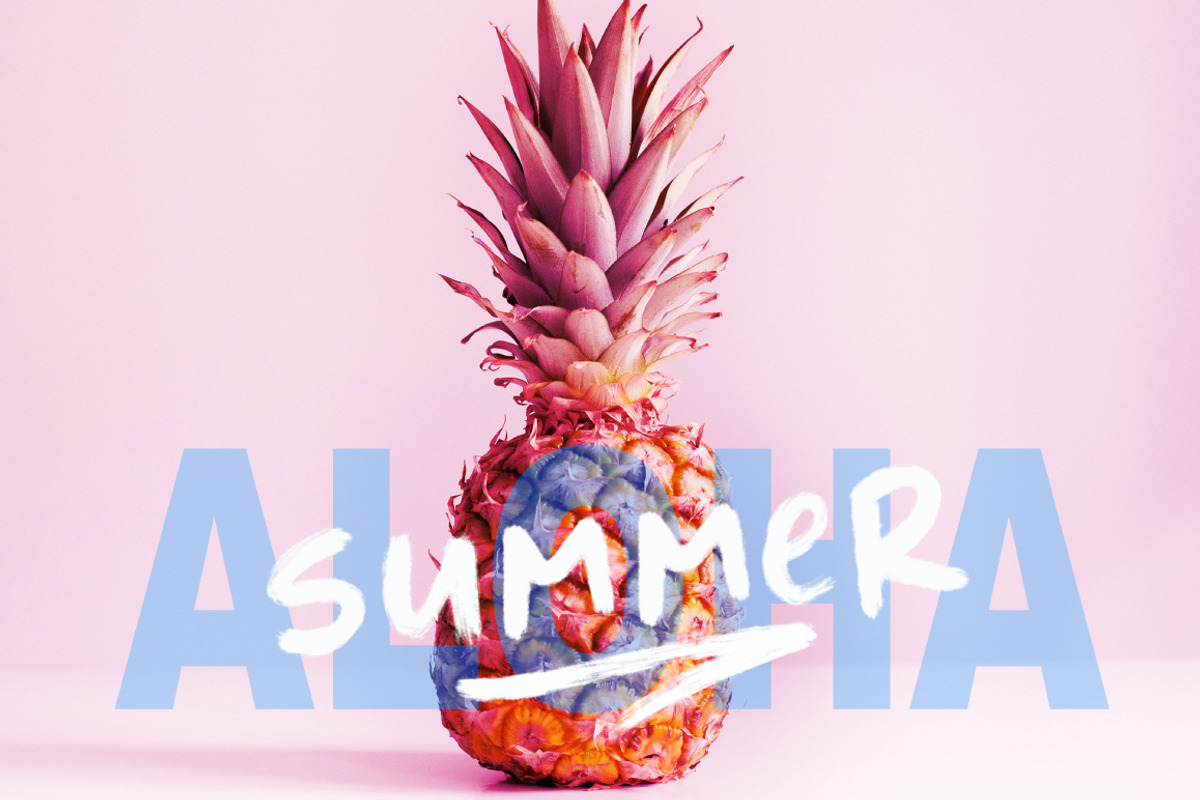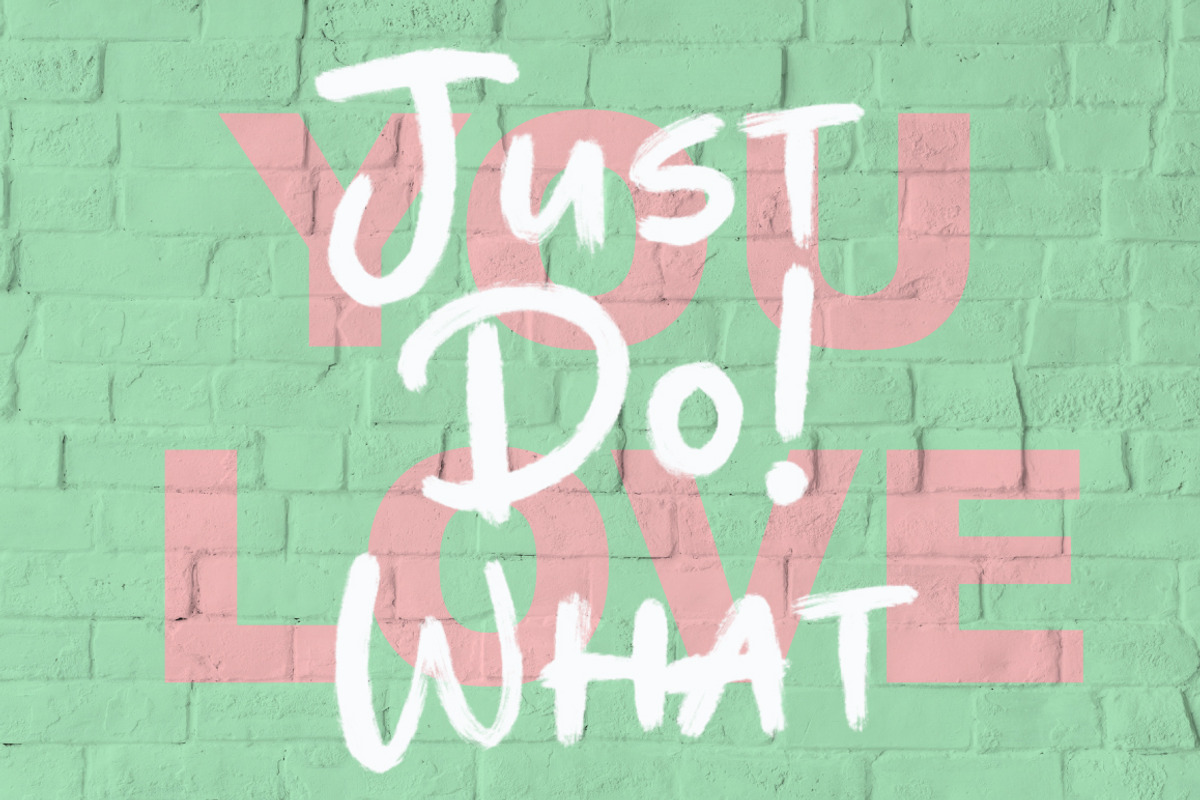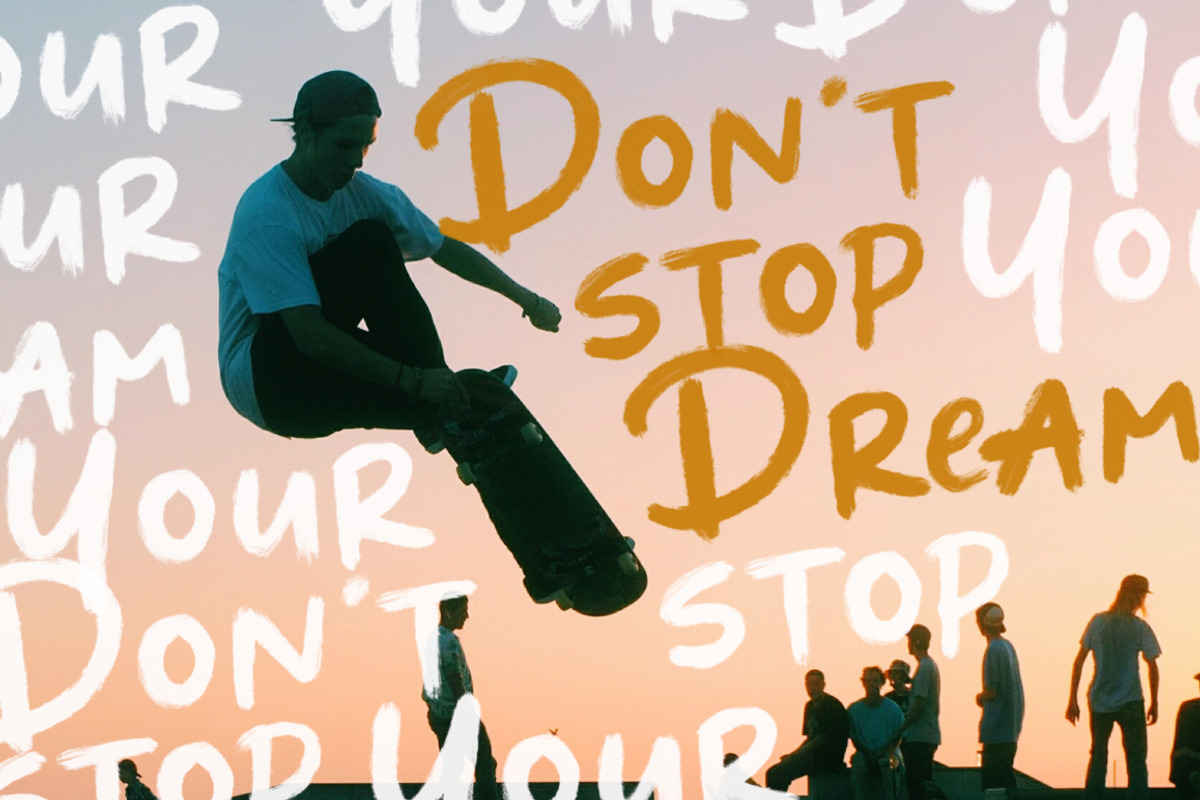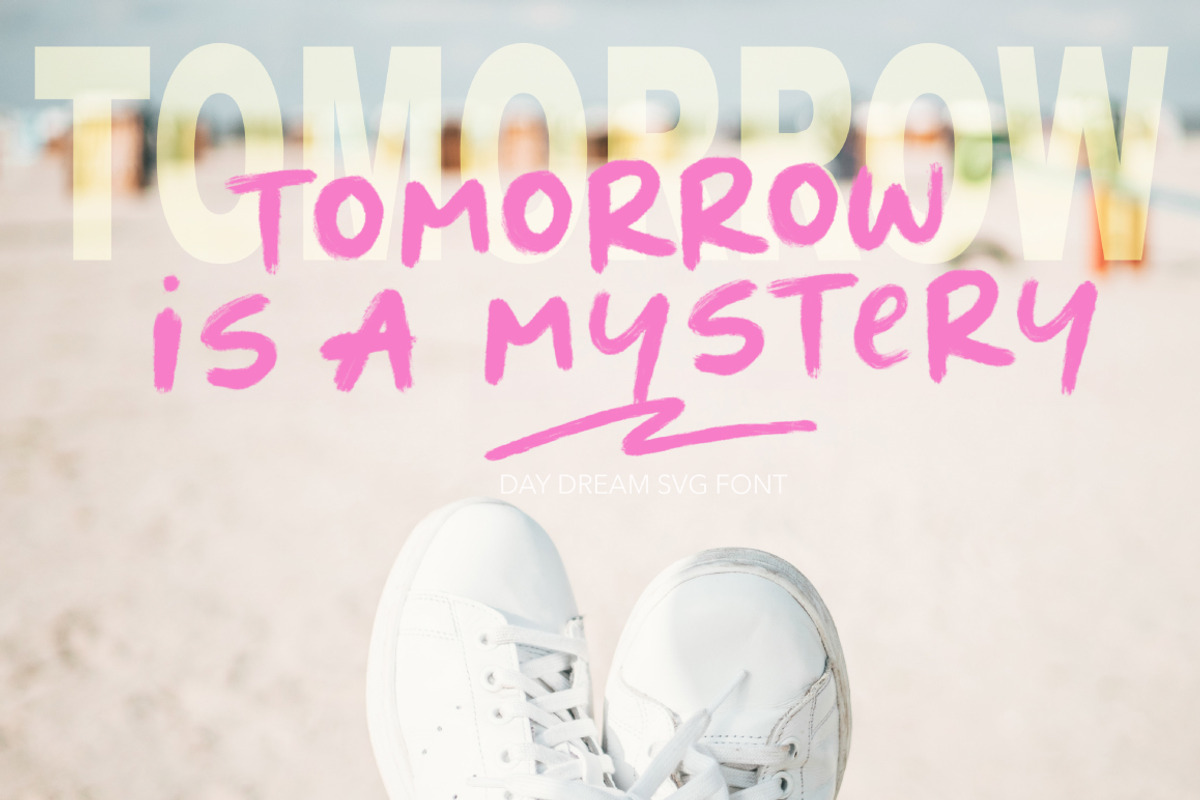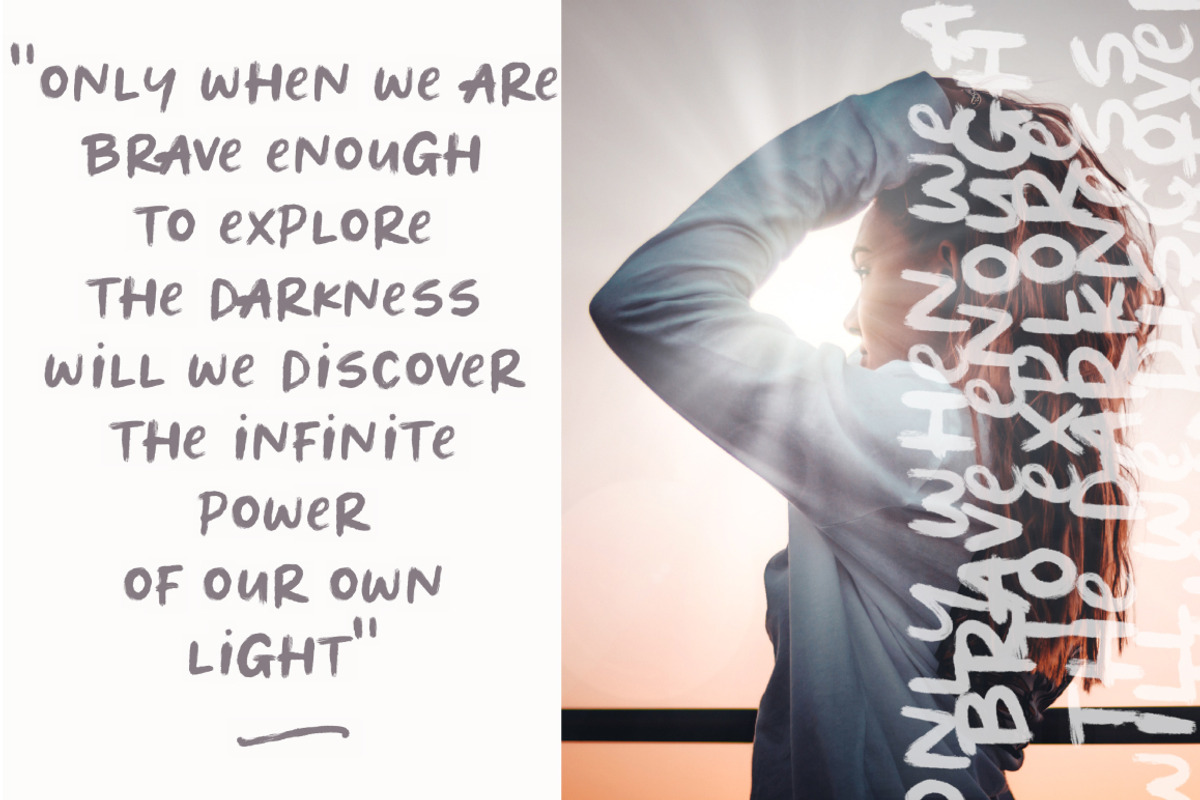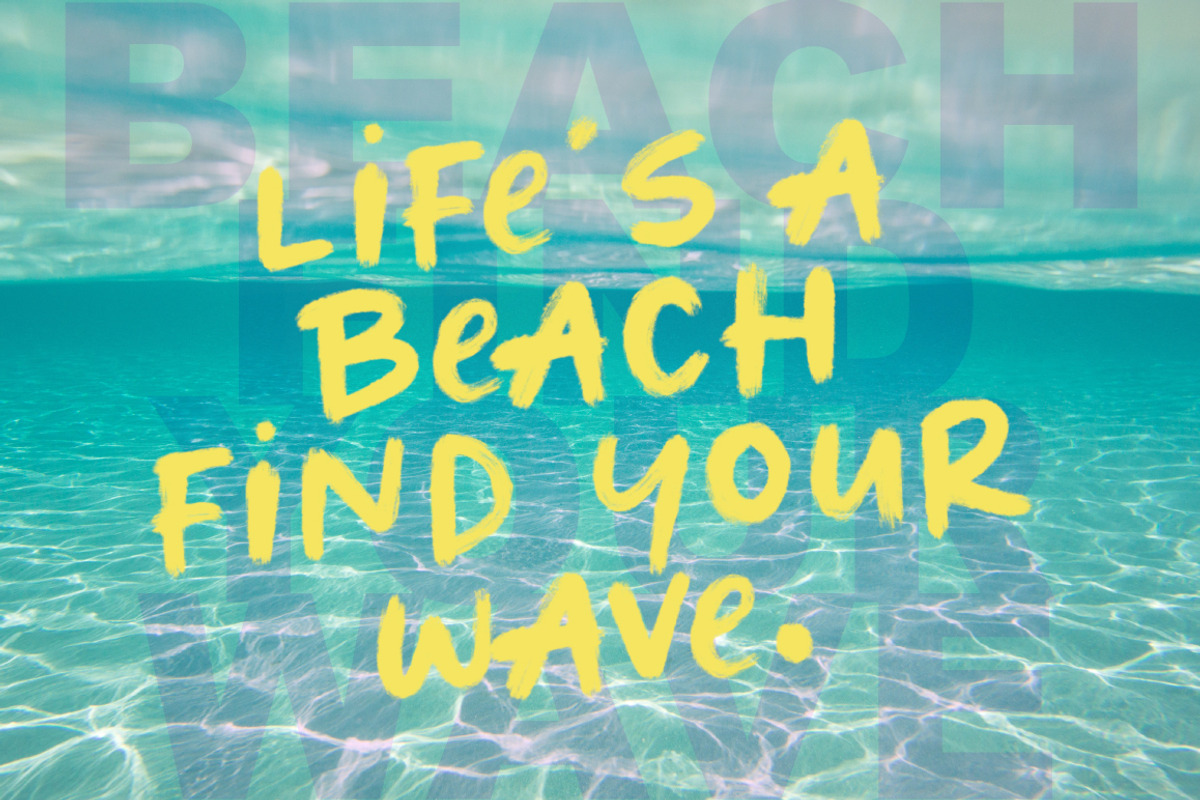
Day dream | Handwritten SVG Font
I'd like to Present you to Day dream ;)
Day dream is lovingly handwritten fonts. A brushed casual script with SVG version
A beautiful collection of hand-lettered modern calligraphy fonts. Perfect for Type-based creations, branding, packaging, quotes, invites, greetings, websites, book covers and so much more!
Day dream SVG : Upper and Lowercase numbers and punctuation This is the OpenSVG version of the font